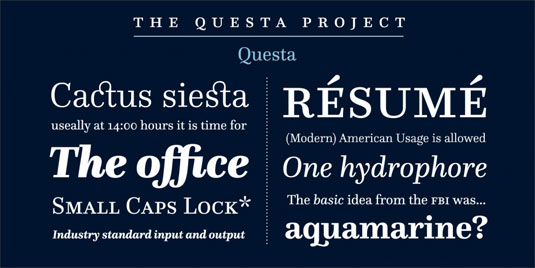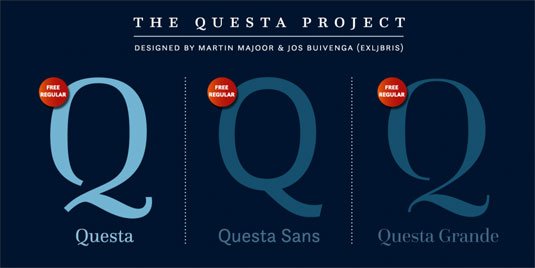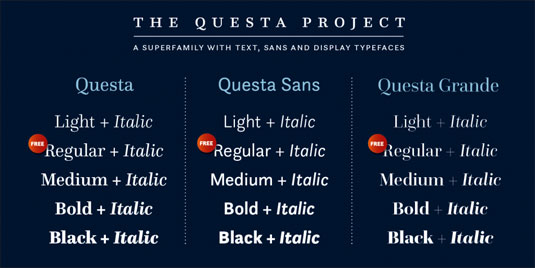
Font of the day: Questa Regular
Questa Regular by Jos Buivenga and Martin Majoor
Questa Regular is a clean, stylish serif that's perfect for editorial design. A true workhorse, it fares well whether used for a large headline or smaller body copy.
Although it's similar to fonts like Didot, Bodoni and Walbaum, Questa is an original design that doesn't feature the ball terminals typical to these fonts and has a higher x-height.